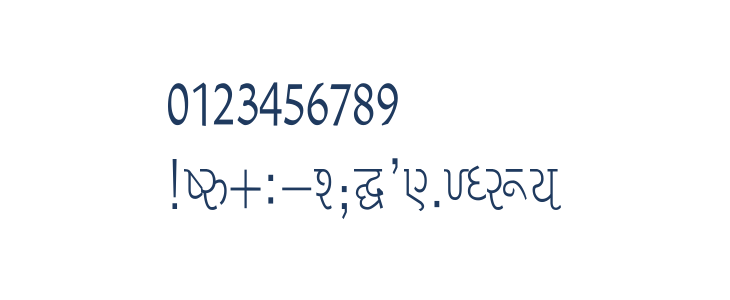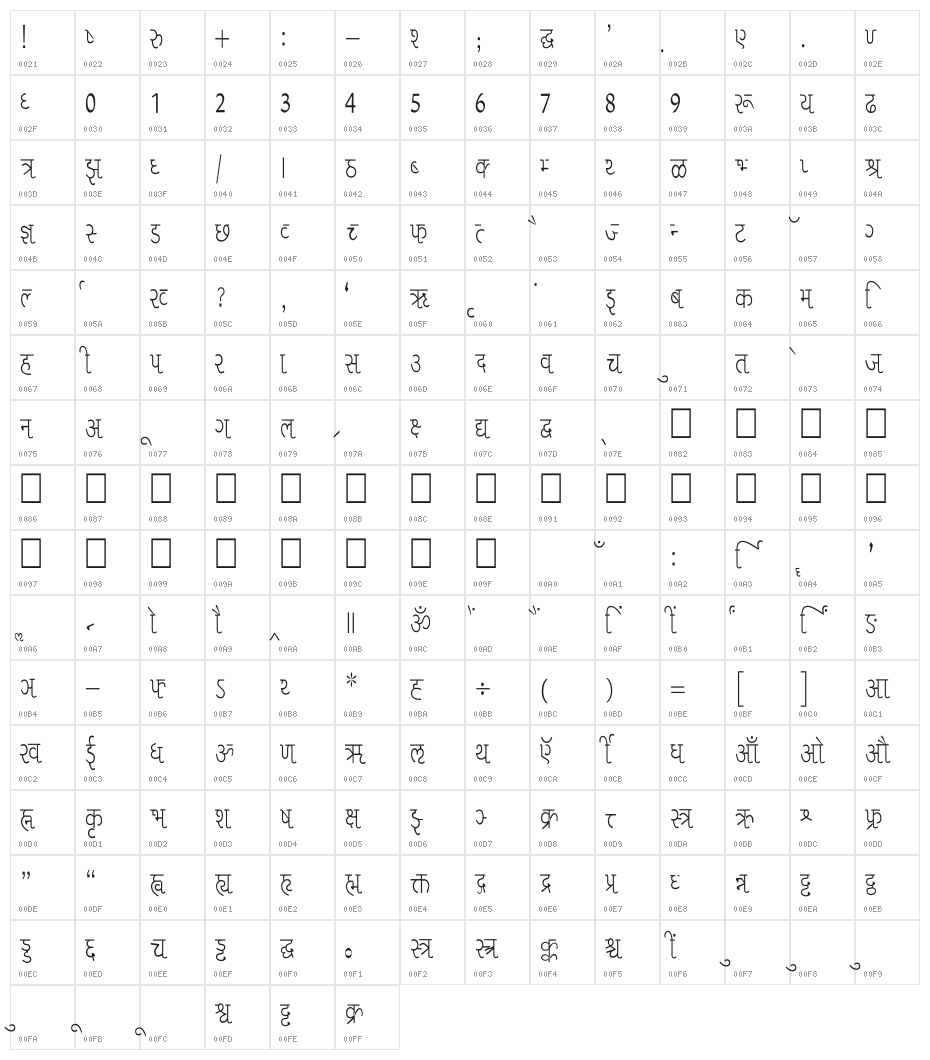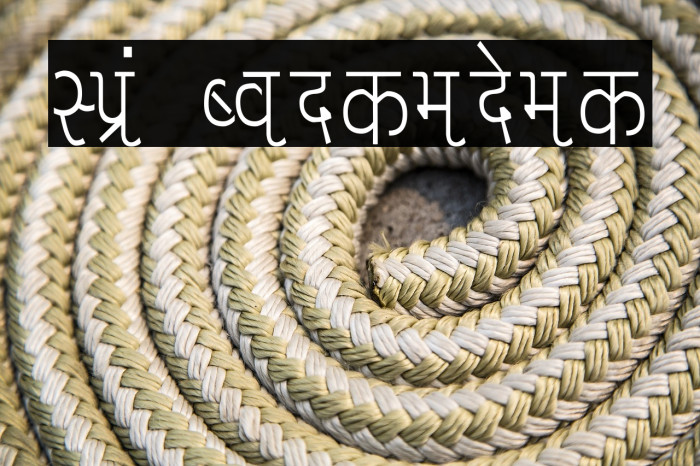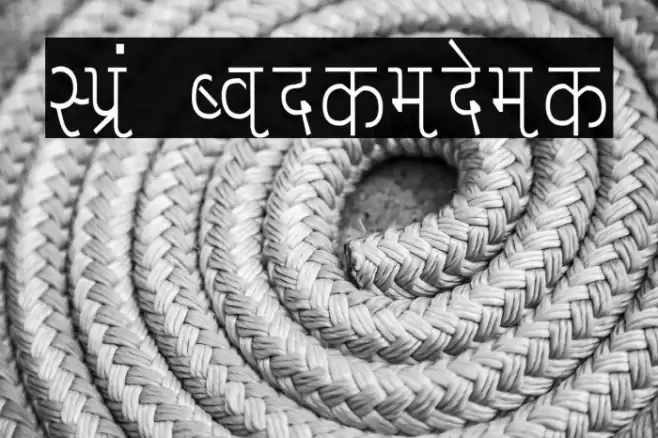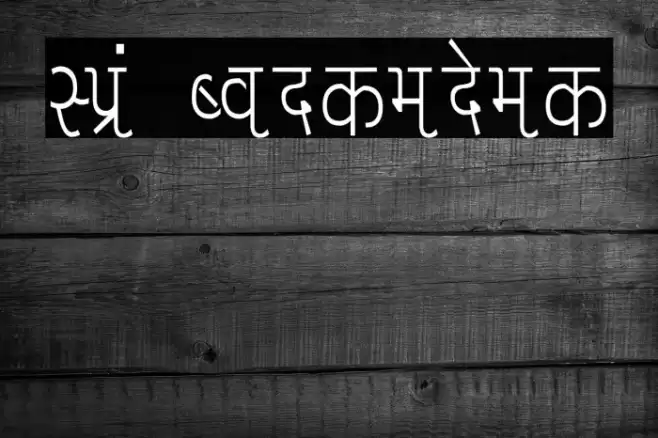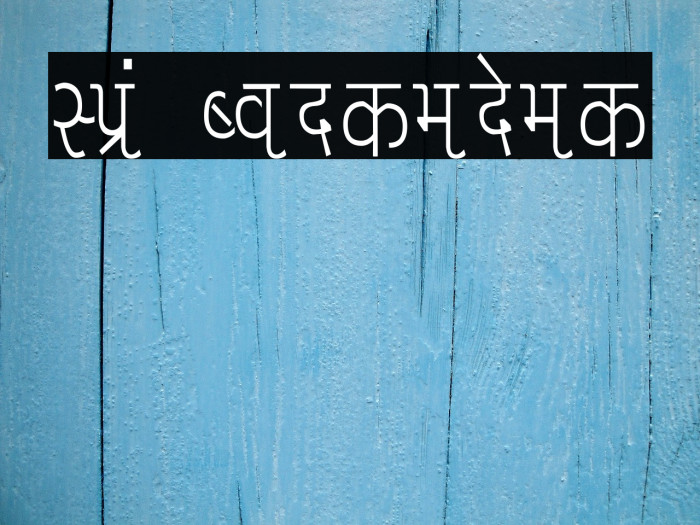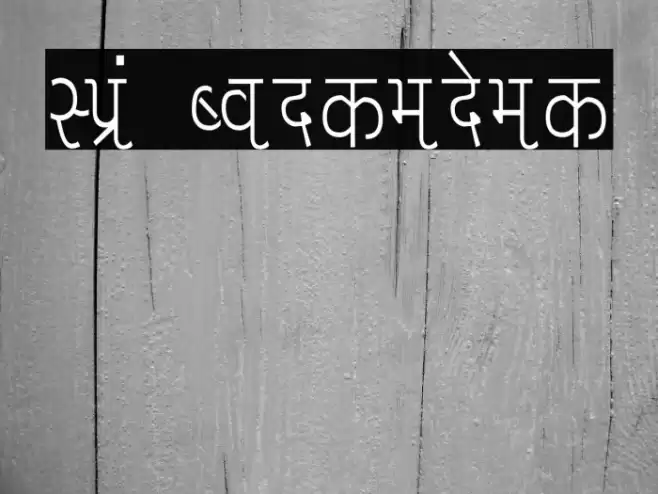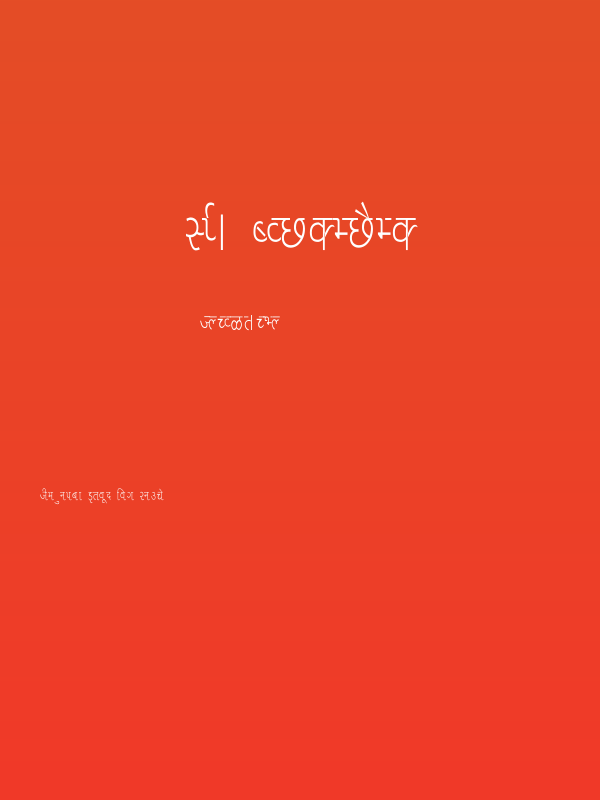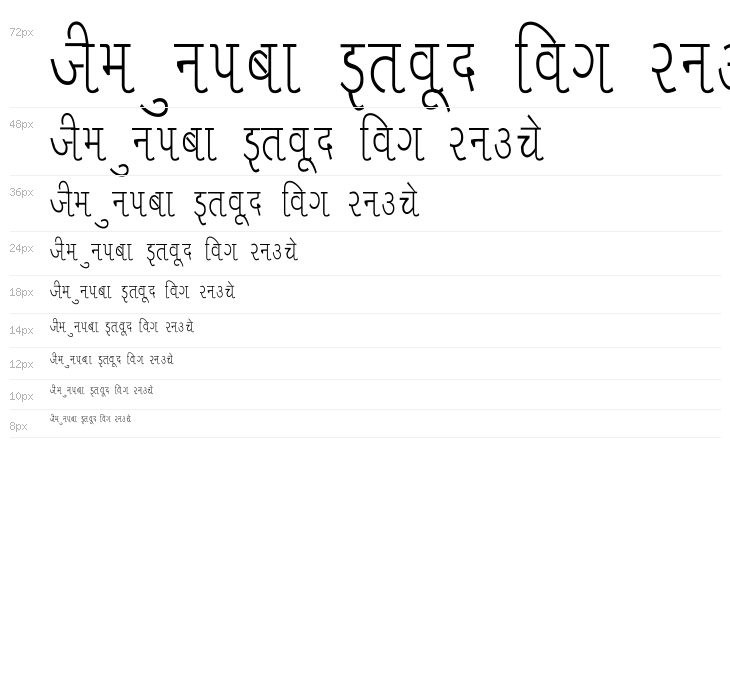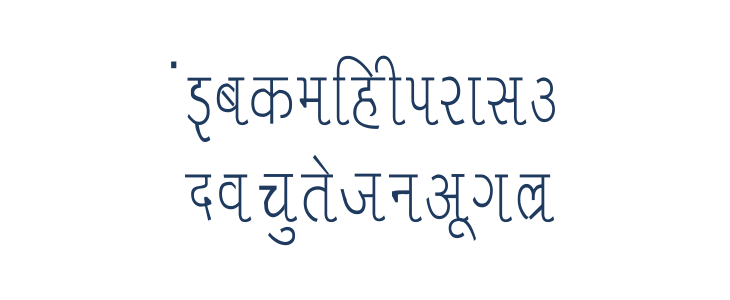
Liza Condensed Font
Liza Condensed Description
This font features a unique blend of traditional and modern elements, characterized by its elegant and flowing script. The characters are intricately designed with a high level of detail, showcasing a harmonious balance between thick and thin strokes. The overall appearance is sophisticated and refined, making it suitable for a variety of design applications. The numerals are clear and distinct, while the special characters add a touch of creativity and flair. This font is ideal for projects that require a touch of elegance and cultural richness.
| Proposed Projects | Ideal for wedding invitations, cultural event posters, and elegant branding materials. |